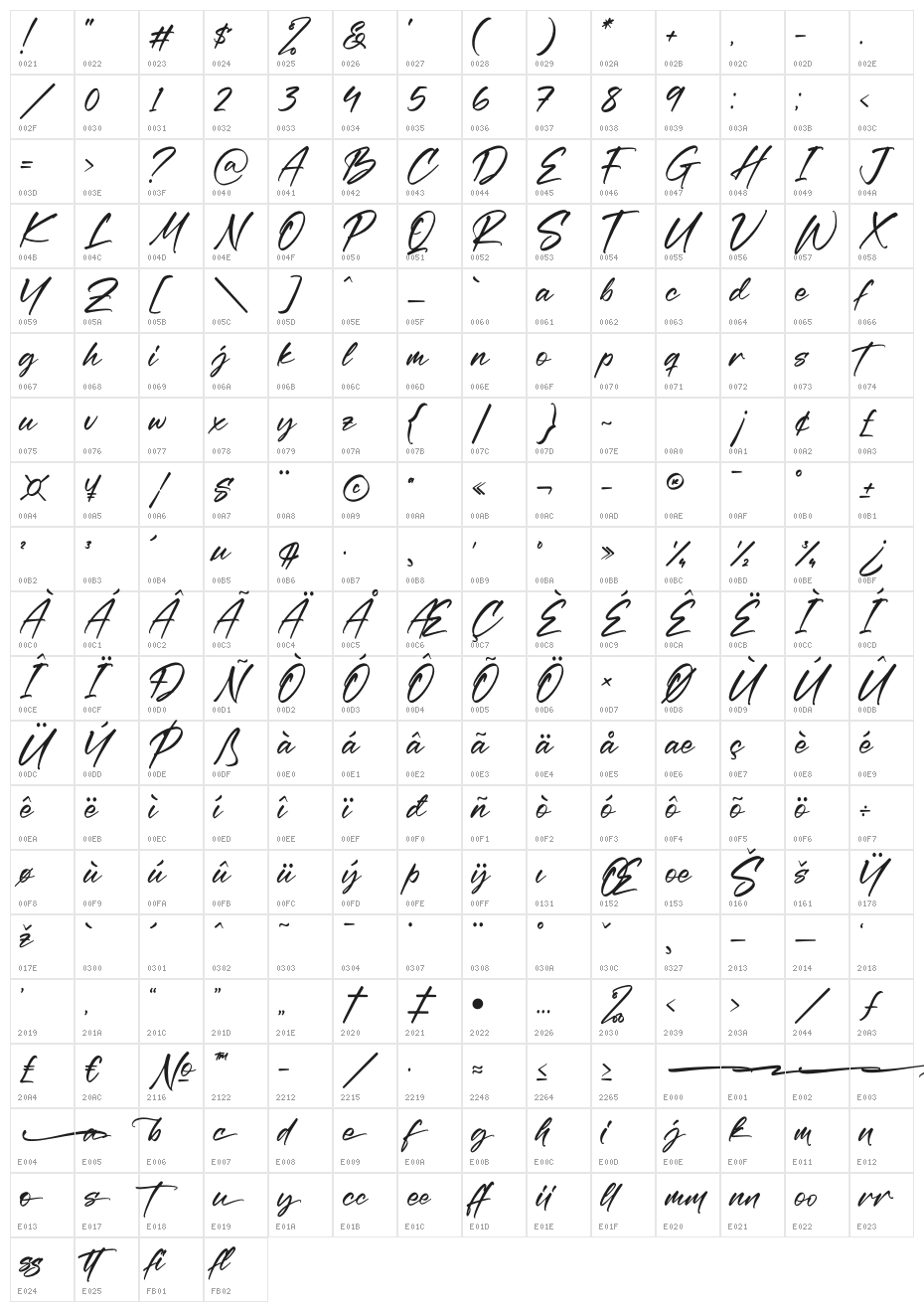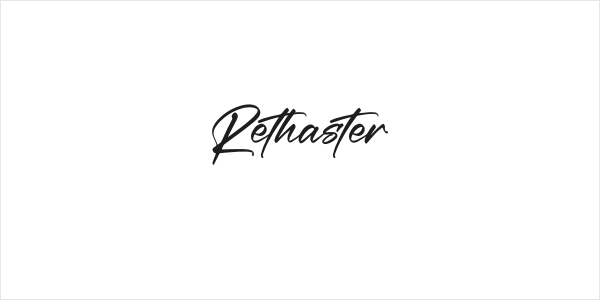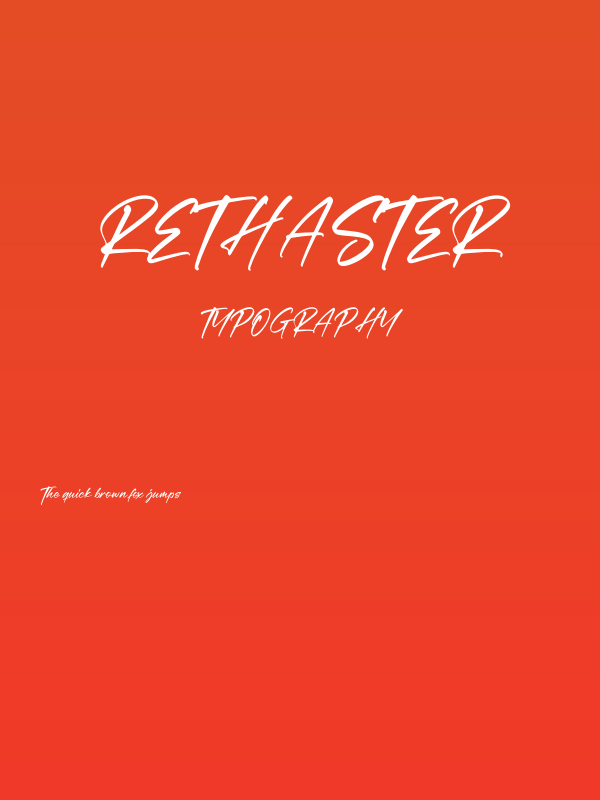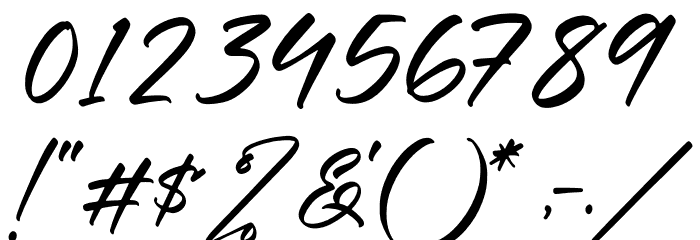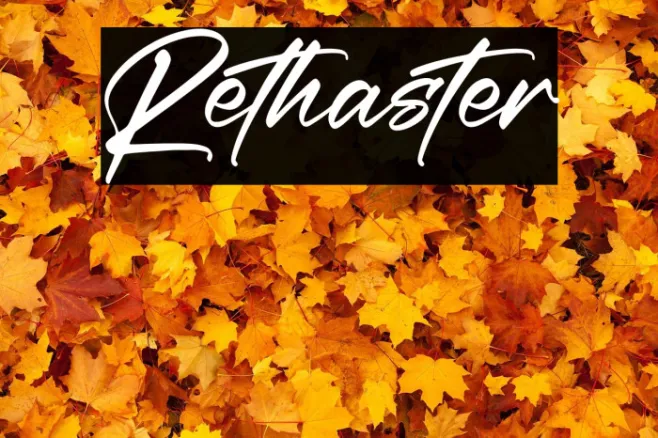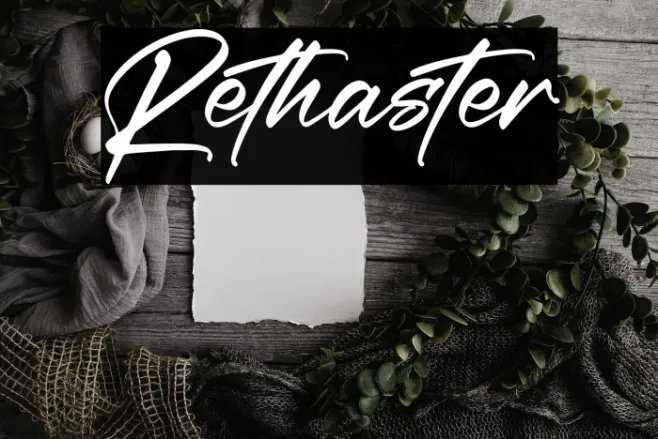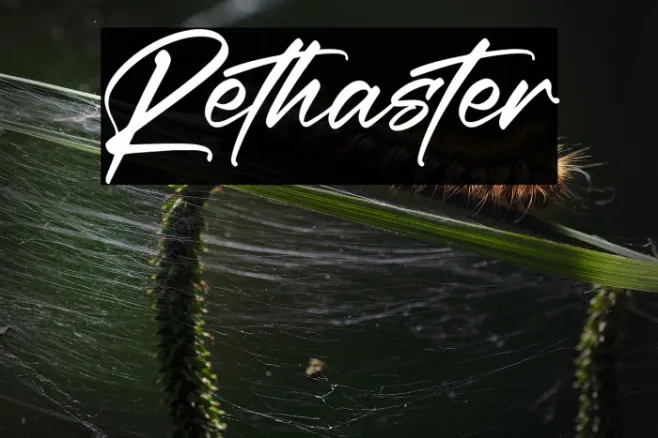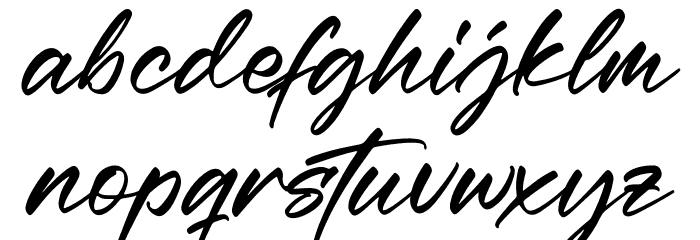
Rethaster Font
Rethaster Description
This font features a dynamic and fluid script style, characterized by its elegant, cursive letterforms that mimic natural handwriting. The strokes are smooth and connected, creating a sense of motion and grace. The uppercase letters are slightly more elaborate, with sweeping lines and loops, while the lowercase letters maintain a consistent flow. The numerals and special characters are crafted with the same attention to detail, ensuring a cohesive look throughout. This font exudes a sense of sophistication and creativity, making it ideal for projects that require a personal touch.